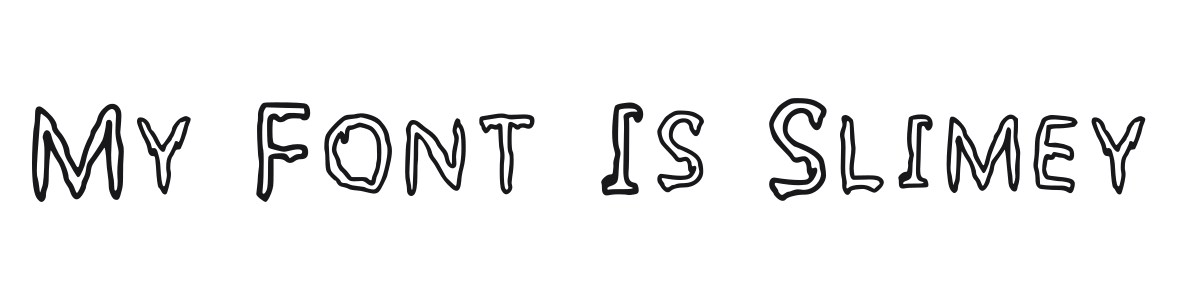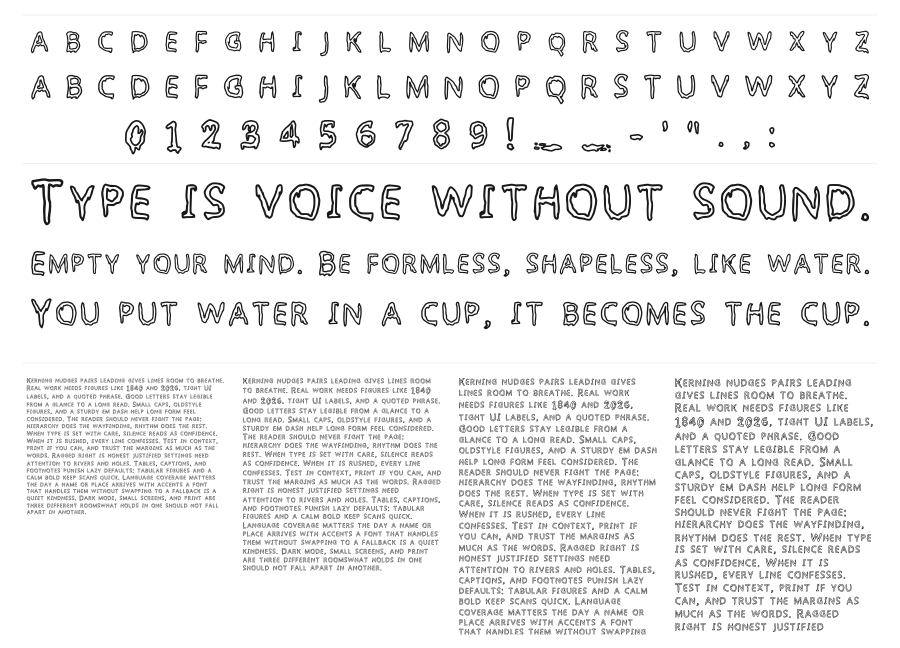
My Font Is Slimey
by Tomoharu
My Font Is Slimy is an outline display font built around the visual gag of letters coated in dripping slime. Each character has a wobbly, blobby contour with organic drips and bulges that make the whole word feel like it just crawled out of a swamp. It works at large sizes for posters, packaging, or anywhere the concept needs to feel gleefully disgusting.